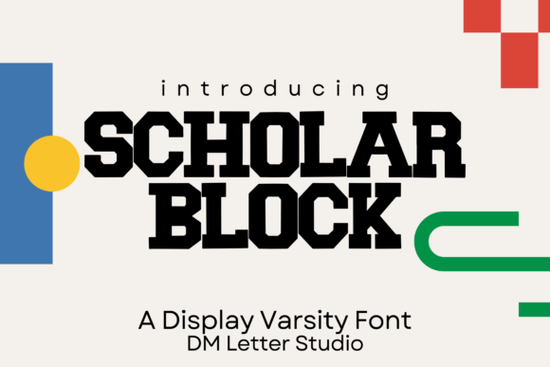
Scholar Block Font is a versatile and powerful typeface designed for anyone looking to add a strong, classic look to their designs. With its bold letterforms and clean lines, this font brings a sense of tradition and strength that works well across a variety of projects. Whether you're creating school-related graphics, sports branding, or retro-themed merchandise, Scholar Block delivers clarity and impact. It’s especially useful for headlines, logos, and display text where visibility and style are key.
As a true all-caps font, Scholar Block ensures consistency and uniformity in your design work. Its sharp angles and balanced proportions make it easy to read at different sizes, from small text to large banners. This makes it ideal for everything from event posters to digital content like YouTube thumbnails and social media graphics. The font maintains a professional finish while still capturing the energetic spirit of college life and team pride.
What Makes Scholar Block Stand Out?
Scholar Block is more than just a font it’s a tool that can help elevate your creative projects with its bold and timeless style. Unlike many other fonts, it’s built with attention to detail, ensuring that every character looks polished and intentional. The font includes a full set of uppercase letters, numbers, punctuation, and multilingual glyphs, making it suitable for global design needs. Whether you're working on a local project or something with an international audience, Scholar Block has you covered.
How to Use Scholar Block Effectively
One of the best ways to use Scholar Block is to pair it with its stylistic siblings, such as Scholar Block Outline or Melted. These variations offer different visual styles that can add depth and interest to your designs. For example, using the outlined version can create a more dynamic look, while the melted style adds a unique, artistic twist. Experimenting with these options can help you find the perfect fit for your project.
Who Benefits From Using Scholar Block?
Scholar Block is especially useful for designers, crafters, and small business owners who need a strong, readable font for branding and marketing materials. It’s perfect for print-on-demand sellers looking to create eye-catching products like t-shirts, mugs, and stickers. The font’s bold appearance makes it ideal for team jerseys, back-to-school collections, and academic merchandise that needs to stand out.
Digital creators also benefit from using Scholar Block. Whether you’re designing YouTube thumbnails, social media graphics, or stream overlays, this font helps your content grab attention. Its clean and professional look ensures that your designs remain visually appealing across different platforms and devices.
Overall, Scholar Block Font is a reliable choice for anyone looking to add a bold, traditional feel to their designs. Its clean lines, strong presence, and wide range of applications make it a valuable asset for both personal and professional projects.